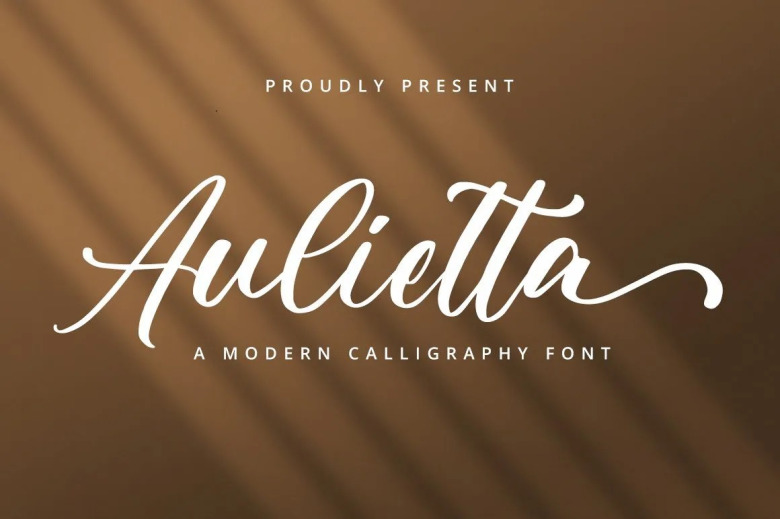
Aulletta Font
Aulletta is a delicate, stylish and flowing calligraphy script font. Inspiration to gut as an authentic and use for wedding invitations, stationary art, social media posts and even a friendly little greeting card that you were going to send your Mum three weeks ago… Note: This font is PUA Encoded that’s mean you can access all of the magical glyphs and swashes with Silhouette or other programs!
Aulletta Calligraphy Script Font